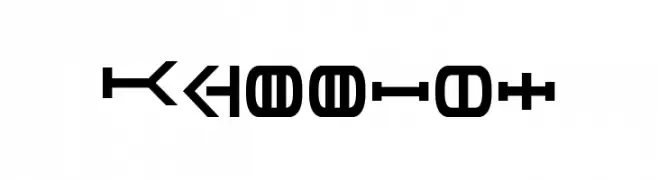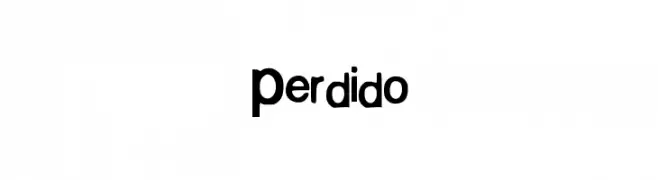
A bold, modern sans-serif font with geometric lines and uniform width.
A dot matrix font with a modern, digital aesthetic and italic style.
A bold, abstract font with sweeping curves and circular motifs, ideal for artistic projects.
A bold, angular font with a geometric and modern design.
A decorative font with playful Halloween-themed icons.
A playful, hand-drawn font with quirky, irregular shapes and varying stroke widths.